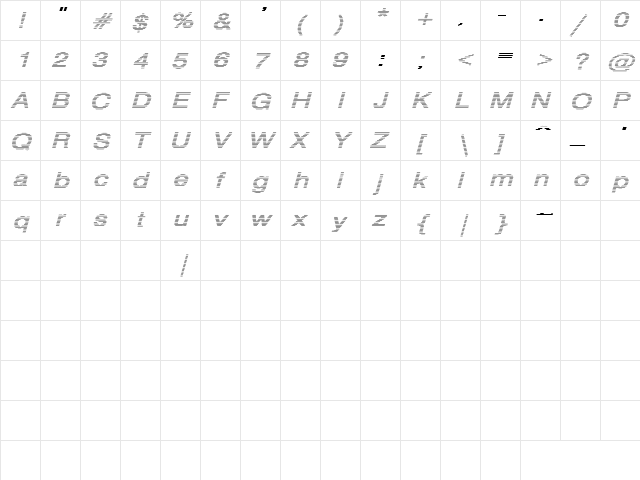
She's On Fire 4 Italic
Design Context for She's On Fire 4 Typeface
She's On Fire 4 is a composed and adaptable typeface that performs quietly and consistently across a wide range of design contexts. Its italic angle brings a sense of urgency and motion to the letterforms.
Pro Tip: Try She's On Fire 4 for annotation and caption copy alongside an upright companion — the contrast in angle creates a dynamic but ordered typographic system.